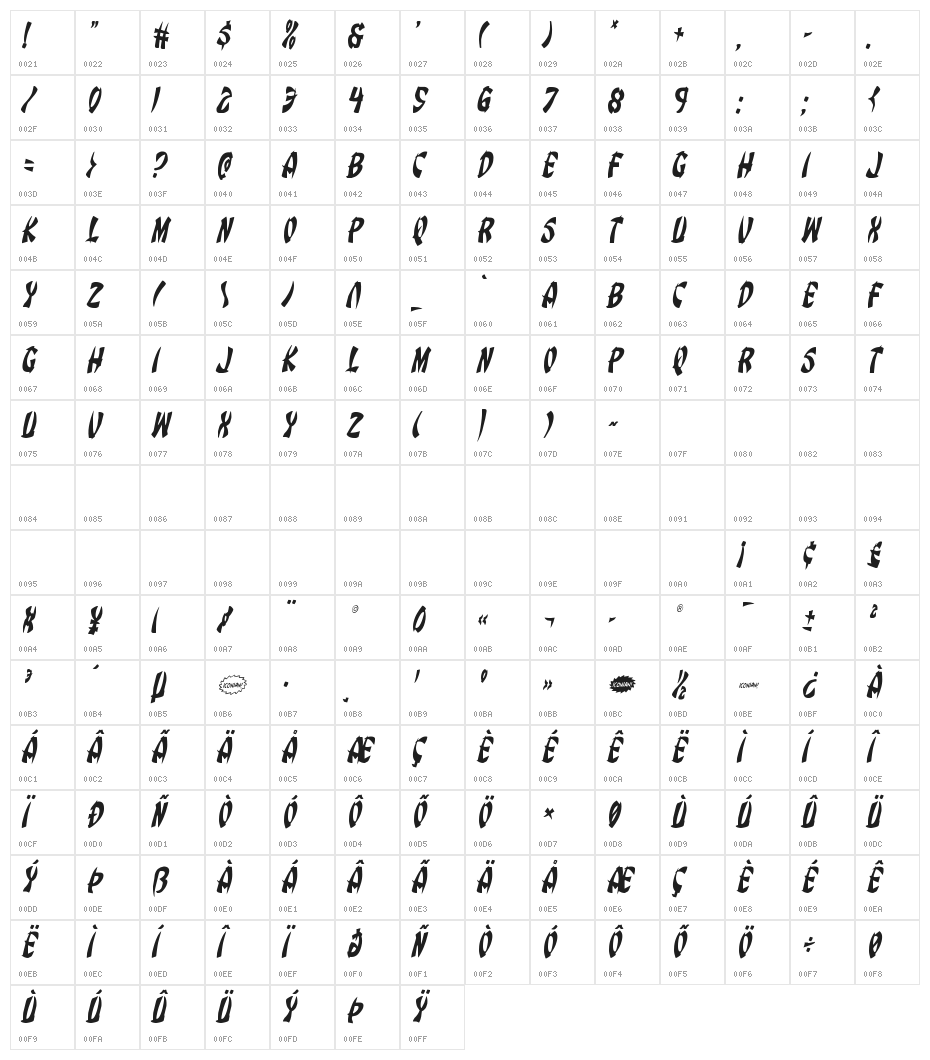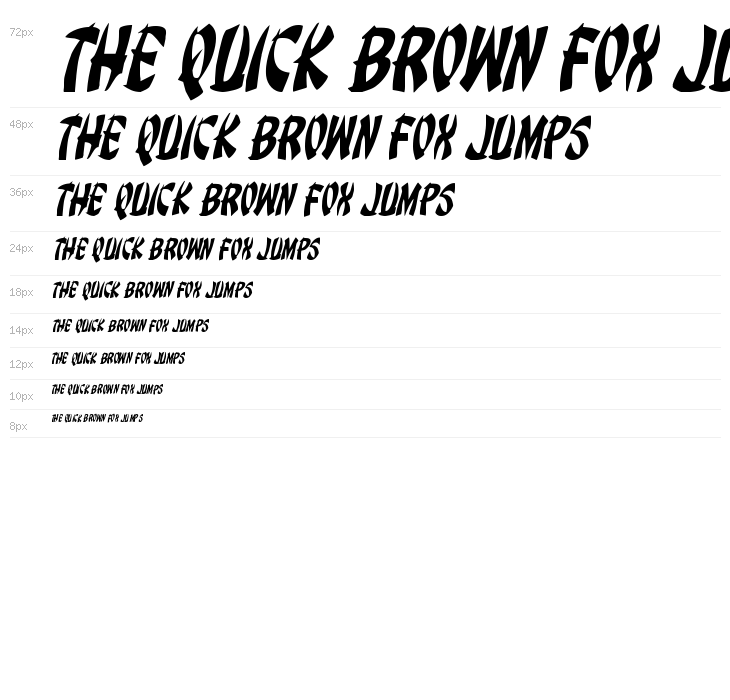
Egg Roll Condensed Italic Font
Egg Roll Condensed Italic Description
This font features a bold and dynamic style with a condensed and italicized form. The characters are sharply angled, giving a sense of movement and energy. The strokes are thick and consistent, creating a strong visual impact. Each letter is uniquely styled with exaggerated curves and sharp edges, making it stand out in any design. The numbers and special characters maintain the same bold and energetic style, ensuring consistency across all elements. This font is ideal for projects that require a bold statement and a modern, edgy look.
| Proposed Projects | Ideal for posters, logos, branding, and any design needing a bold, modern statement. |